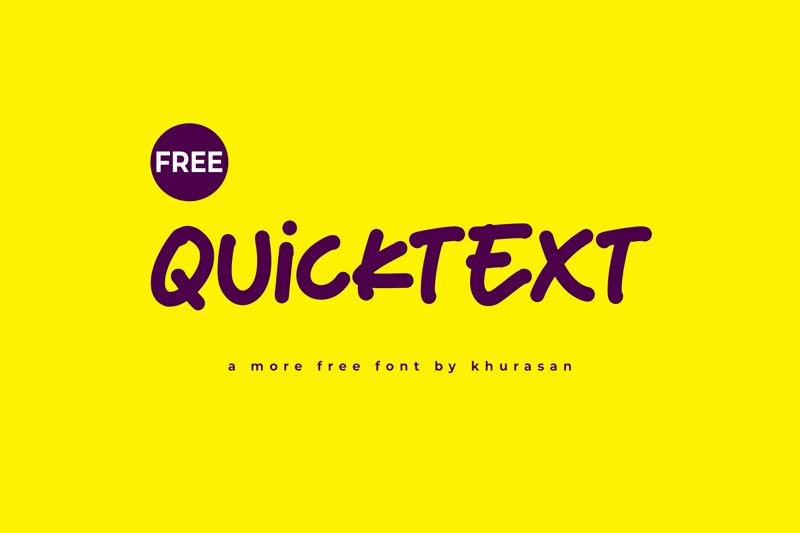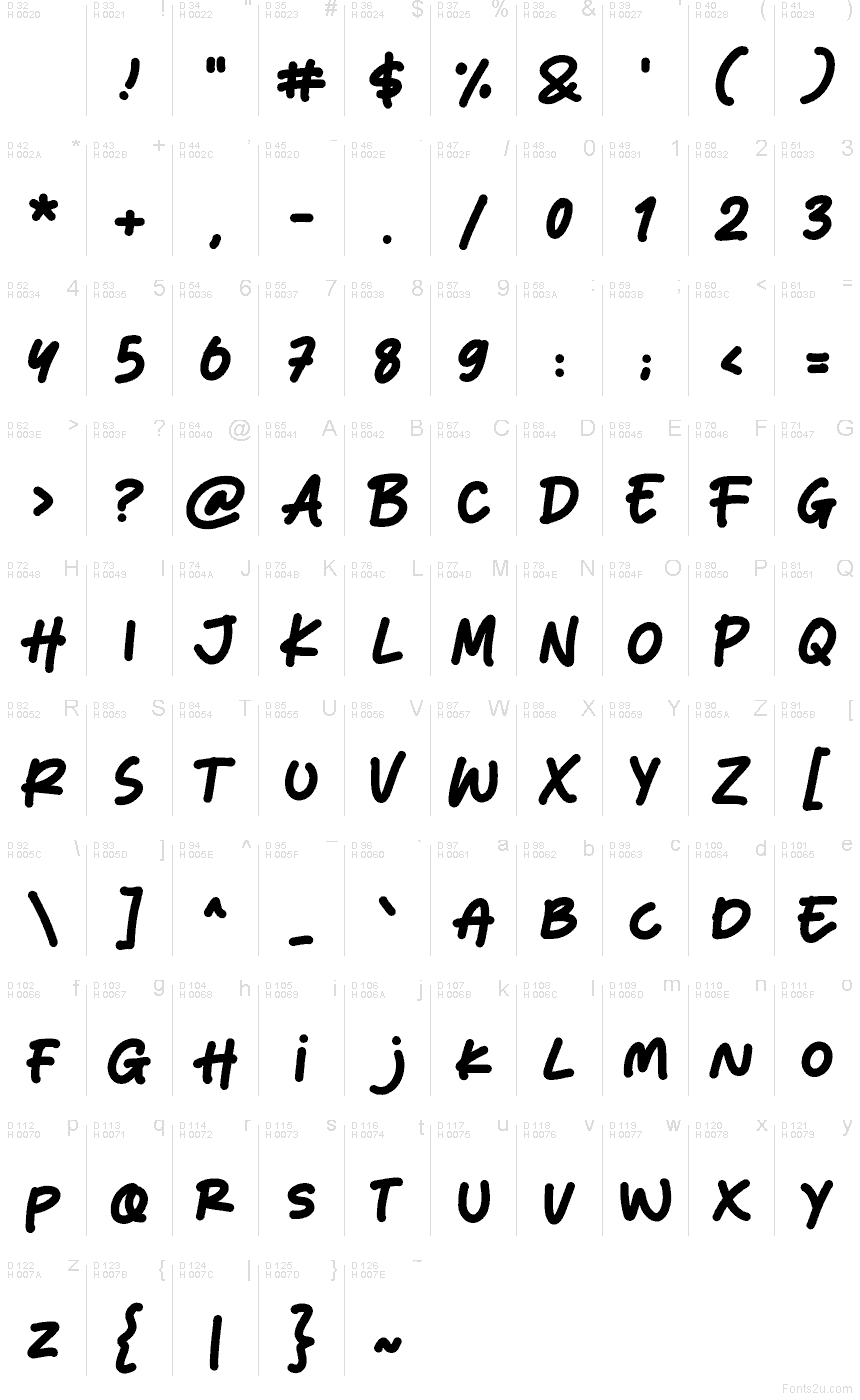
Quicktext
Quicktext font by Khurasan is a free comic display typeface with bold, inky strokes and a loose handwritten bounce that feels straight out of a sketchbook. The letters are chunky yet soft around the edges, giving headlines a friendly, slightly chaotic energy that grabs attention without feeling stiff or overdone. Its rhythm feels quick and spontaneous, making short words and phrases read like excited shouts or playful asides.
Using Quicktext, this free font shines on comic covers, kids’ book titles, YouTube thumbnails, game logos, stickers, and bold social posts where you want loud, fun personality in an instant. The tight spacing and thick forms hold up well at larger sizes, especially against bright, flat color backgrounds. For supporting text, pair it with a clean geometric sans to keep the chaos focused and the message clear.